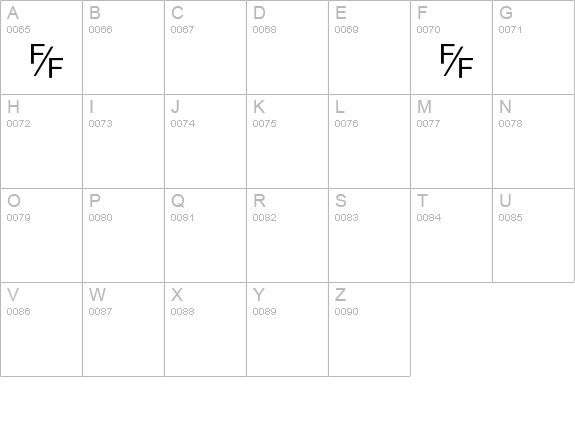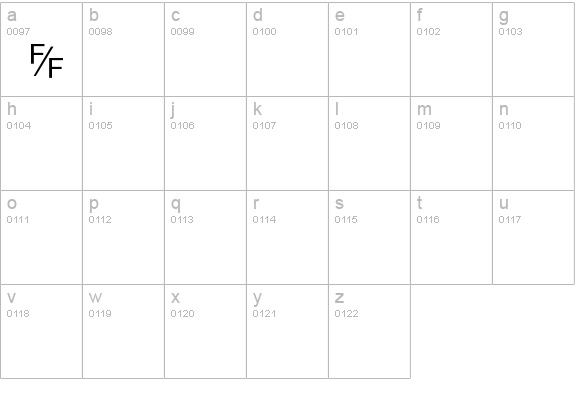
HelvFE Font Details
HelvFE is a versatile and modern typeface that combines clean lines with a sleek and stylish design. This font exudes elegance and sophistication, making it perfect for a wide range of design projects. With its timeless appeal and excellent readability, HelvFE is an excellent choice for both digital and print applications. What's even better is that HelvFE is available for free! You can easily download this beautiful font at FontsMarket.com and start using it in your projects today. Don't miss out on the opportunity to enhance your designs with this high-quality and freely accessible typeface.